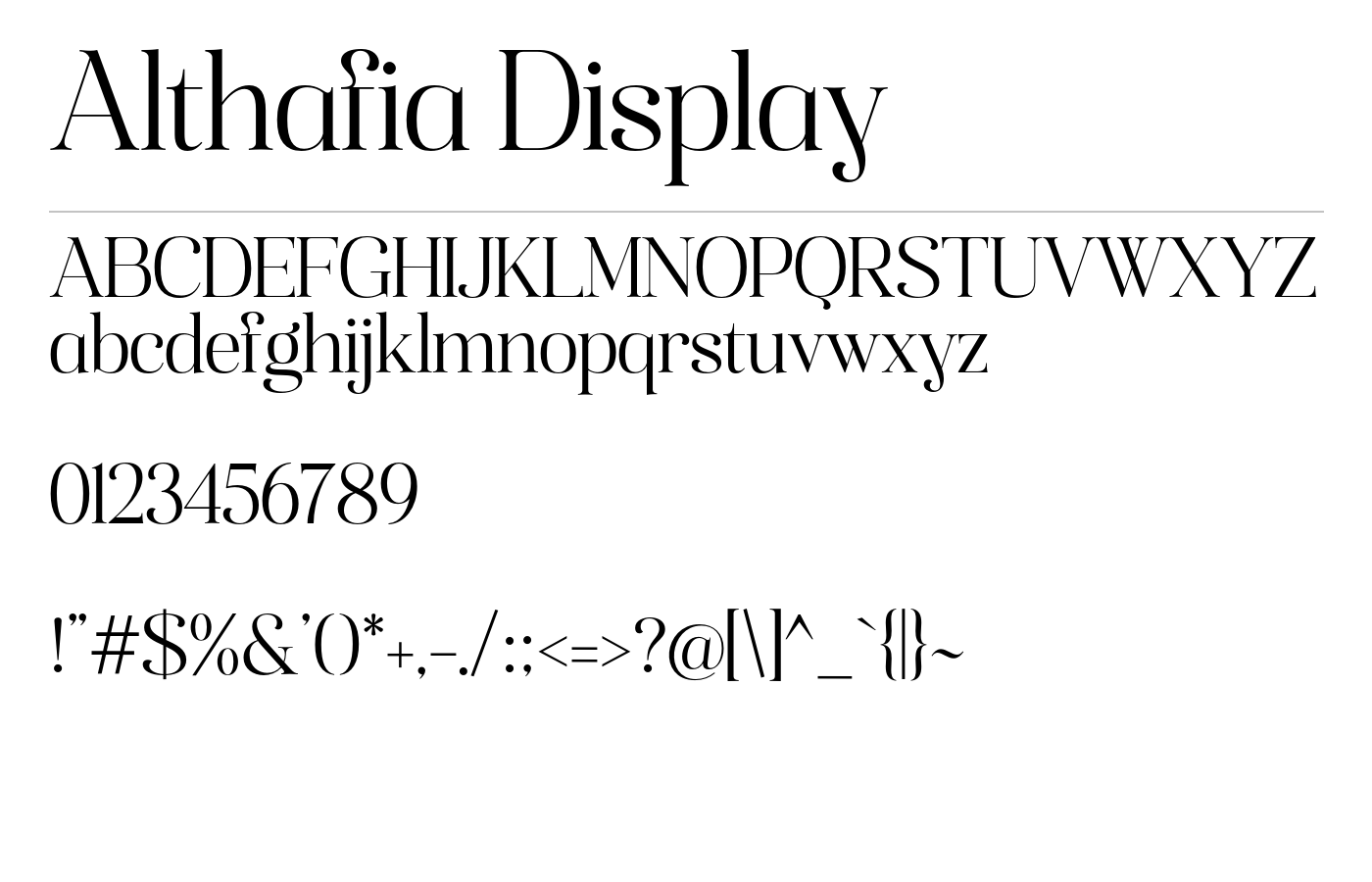
Althafia Display is a refined serif font characterized by its high contrast between thick and thin strokes and elegant, slender letterforms. With its delicate curves and distinctive details like the curved tail on the Q and unique ampersand, it exudes a sophisticated and classic feel ideal for luxury branding, editorial headlines, and upscale packaging. This font works beautifully where a stylish, graceful appearance is needed to convey elegance and timeless charm.
Althafia Display Font
About Althafia Display Font
| Font family | Althafia Display Font |
| Designer | Muammar Kadafi |